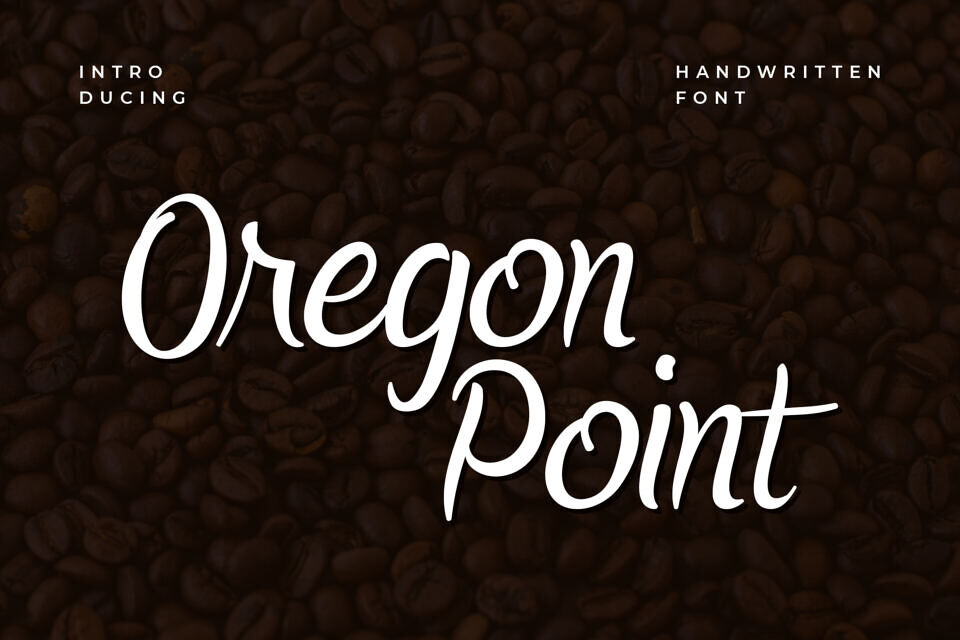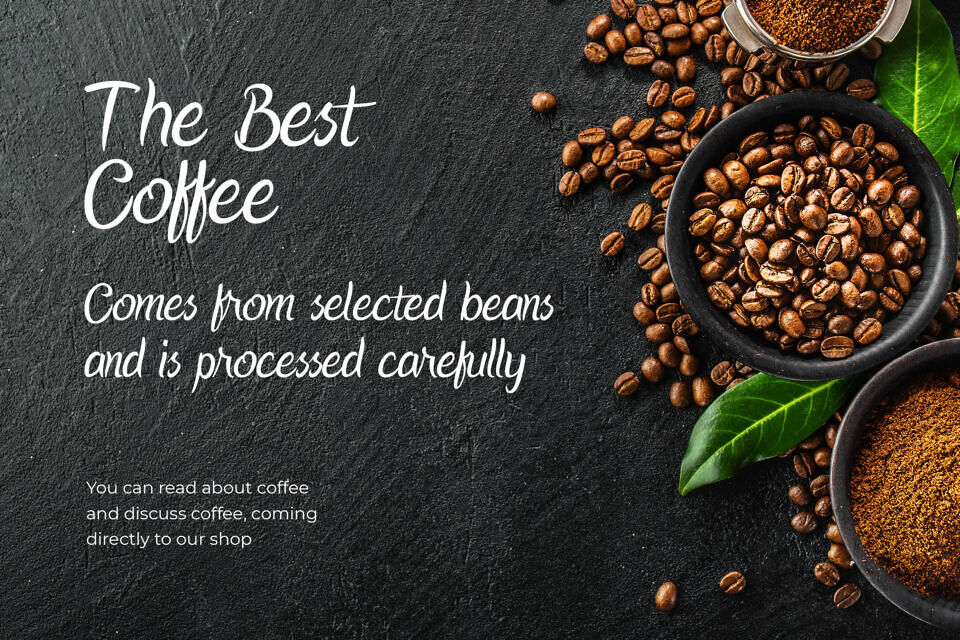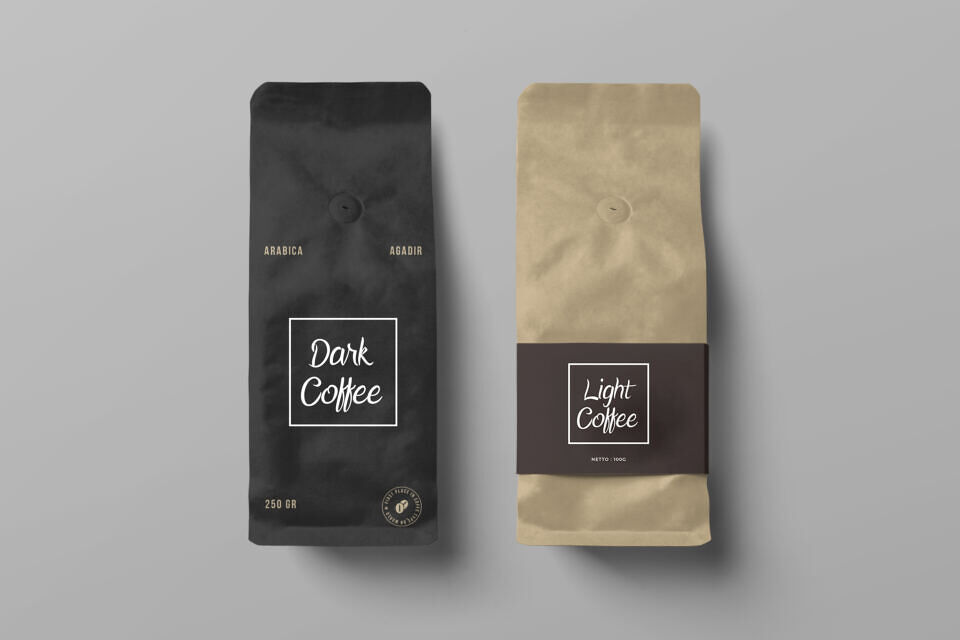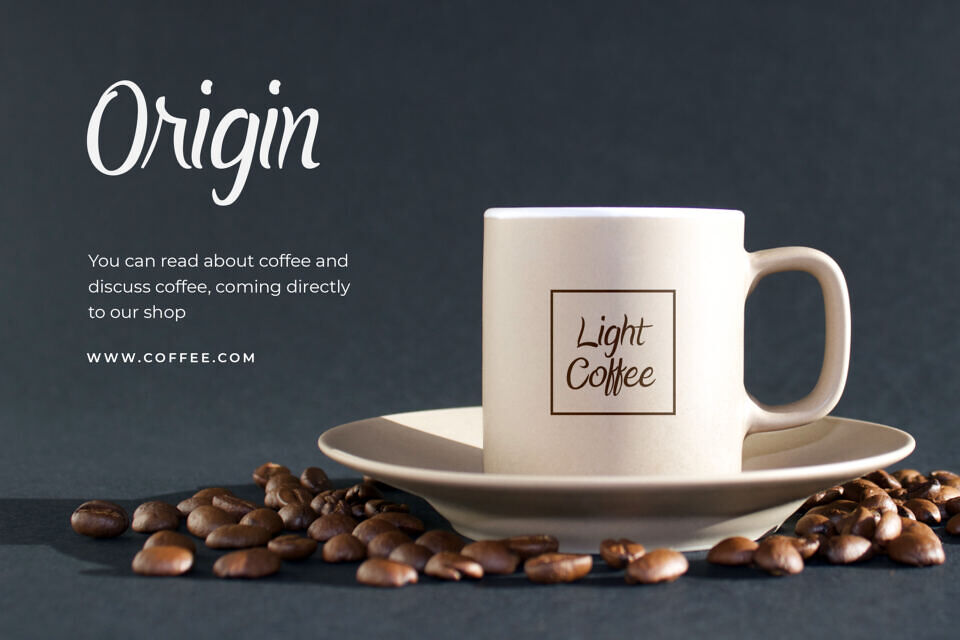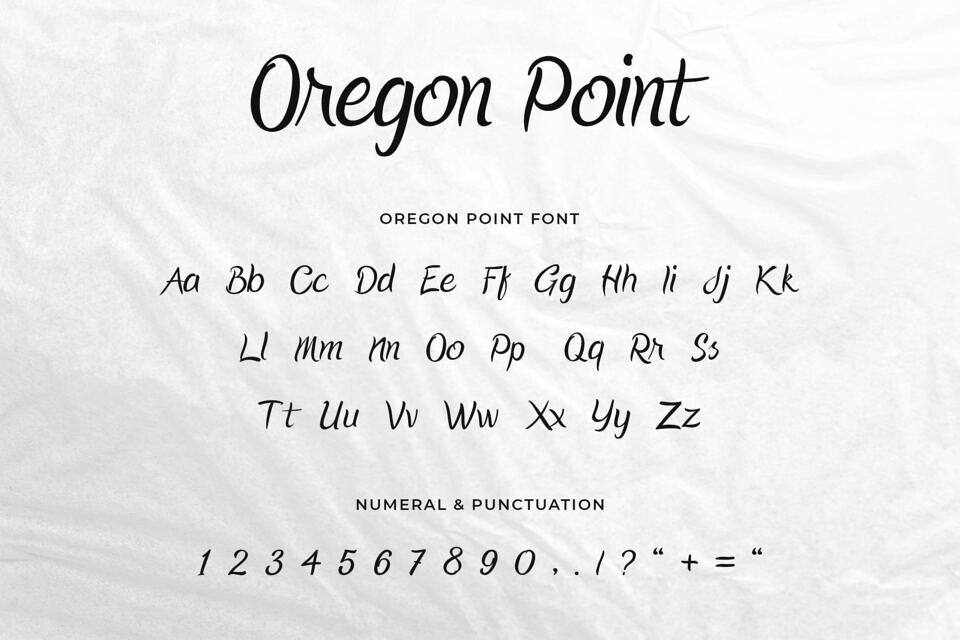
Oregon Point Font
Oregon Point is a modern script font that is readable, round lettered and stylish. It is defined by smooth curves and is perfect for fashion branding or editorial designs. Add it confidently to your projects, and you will love the results.